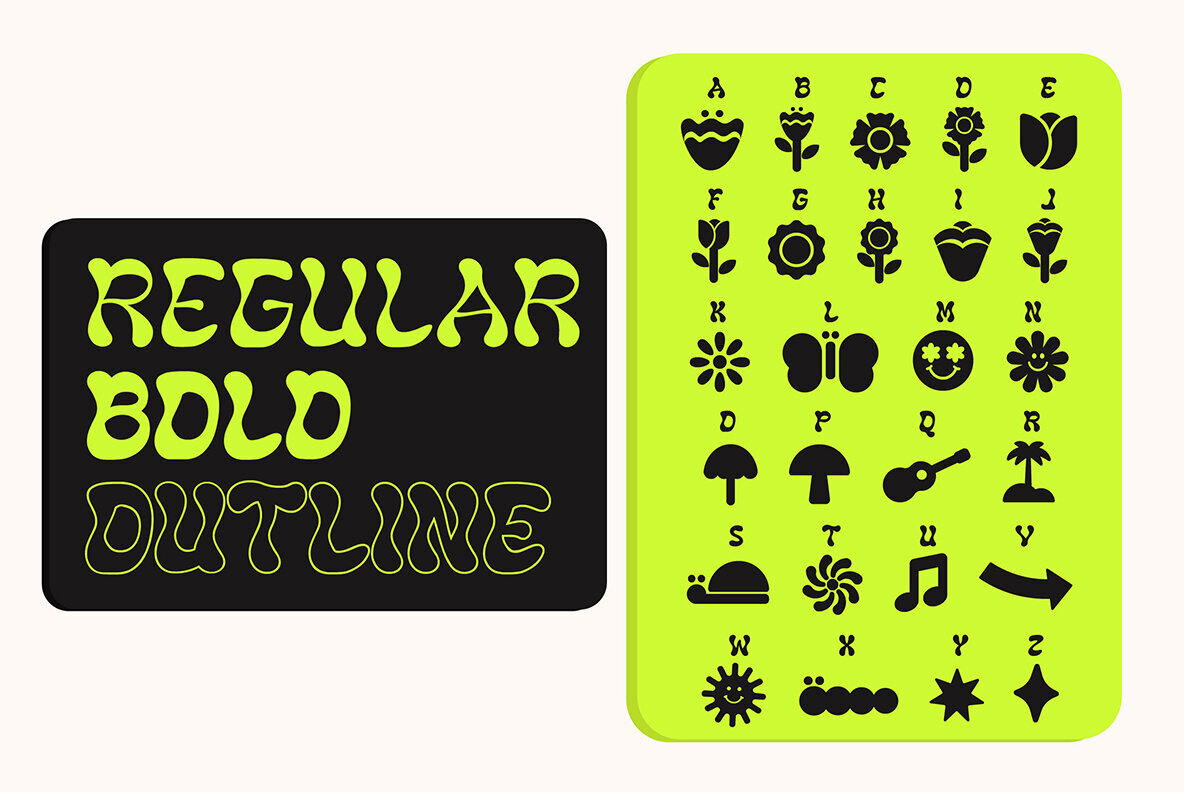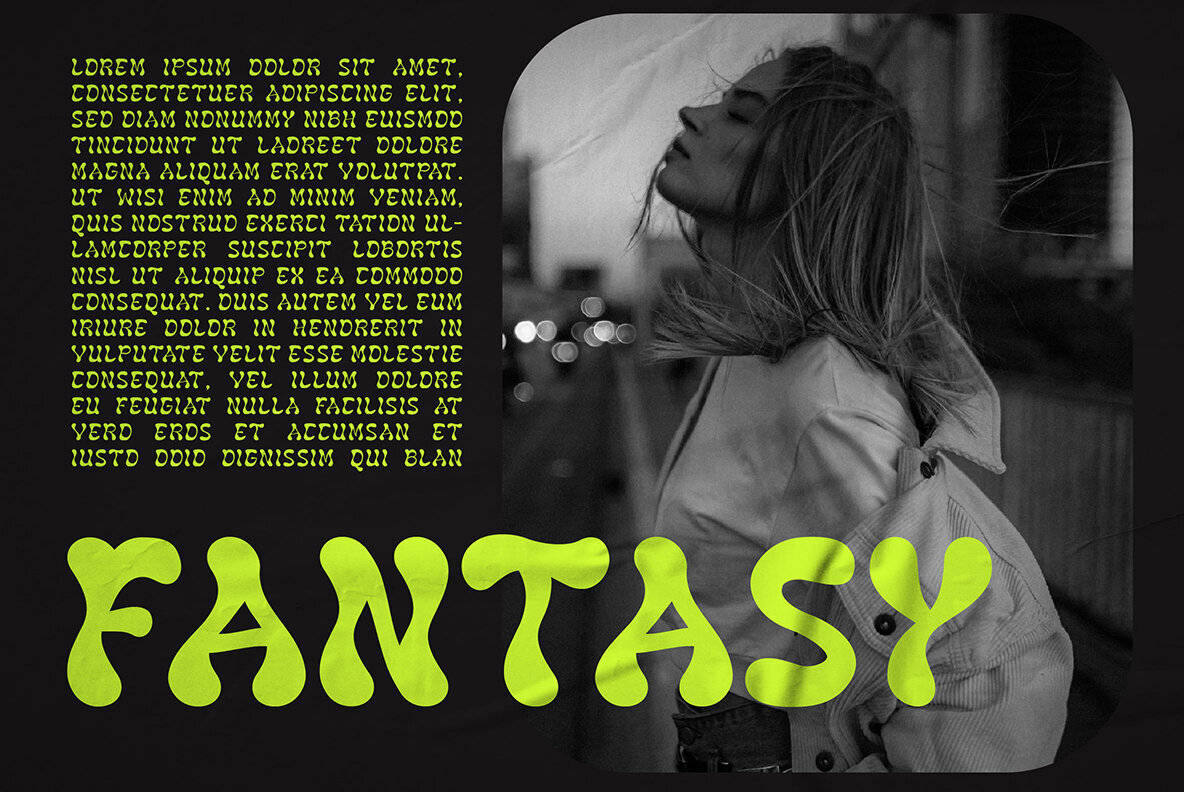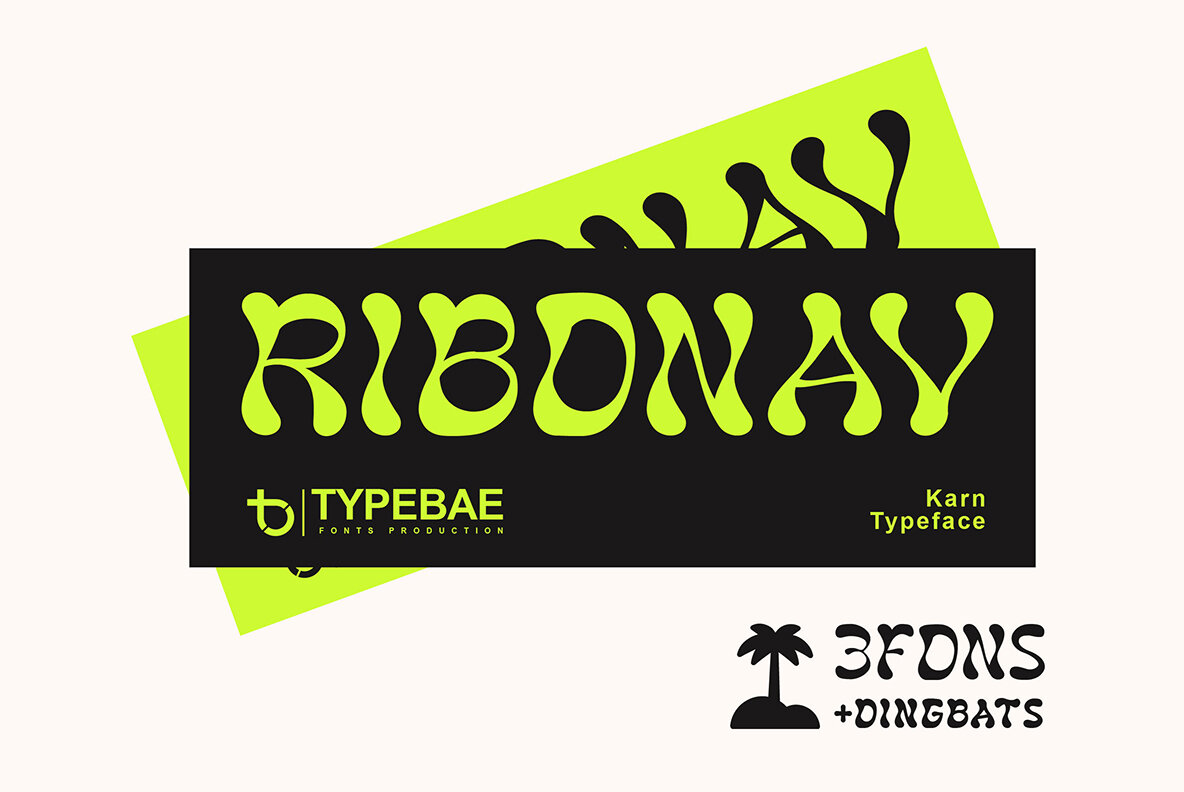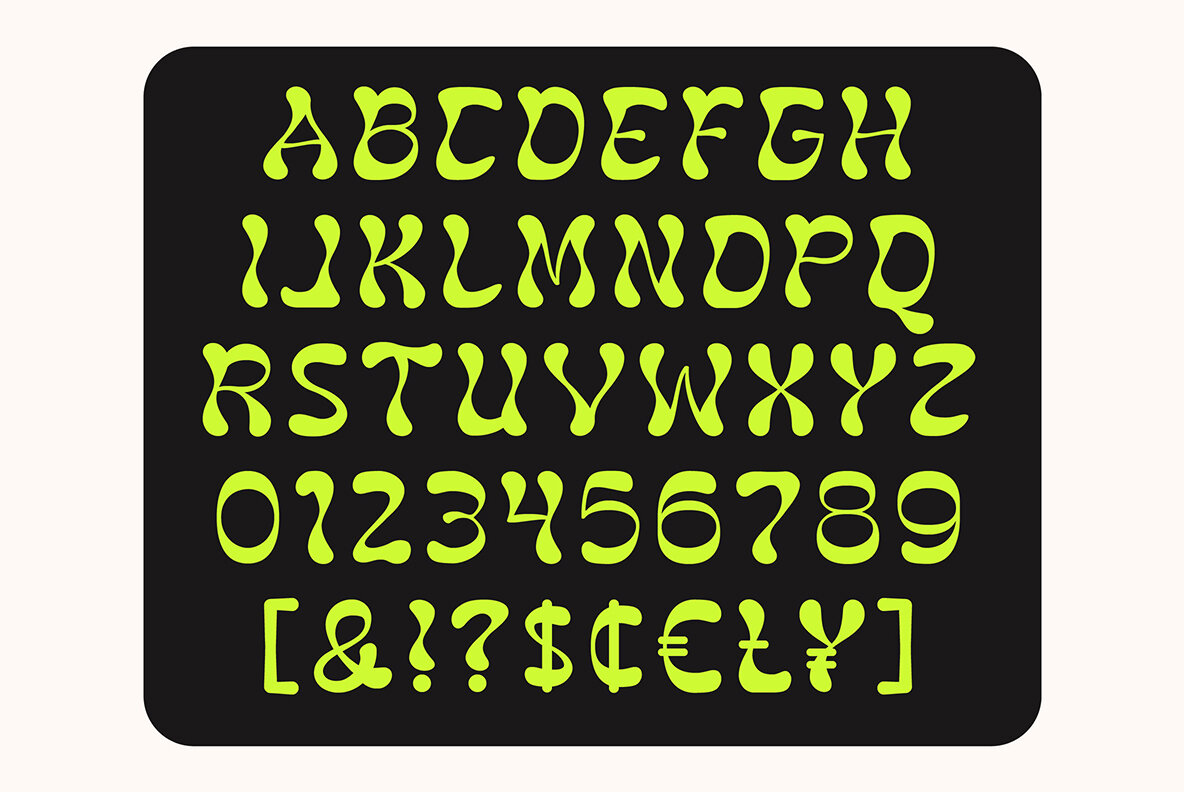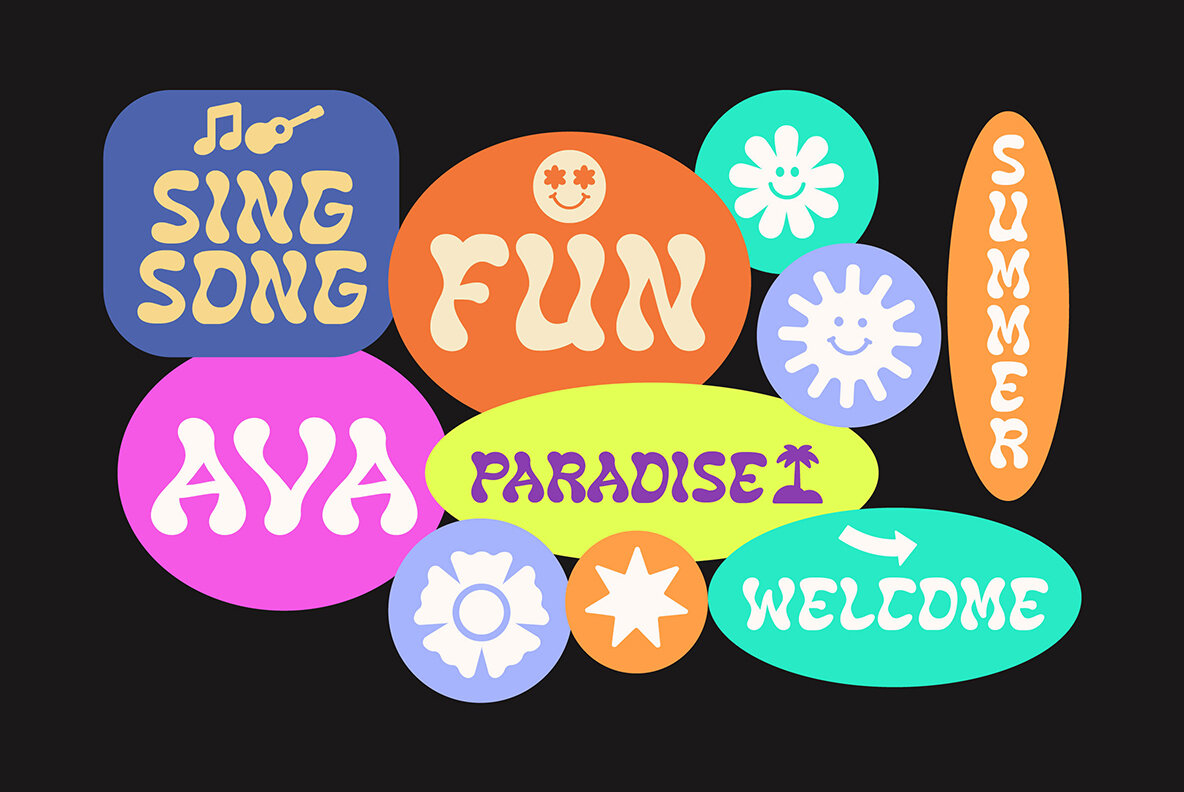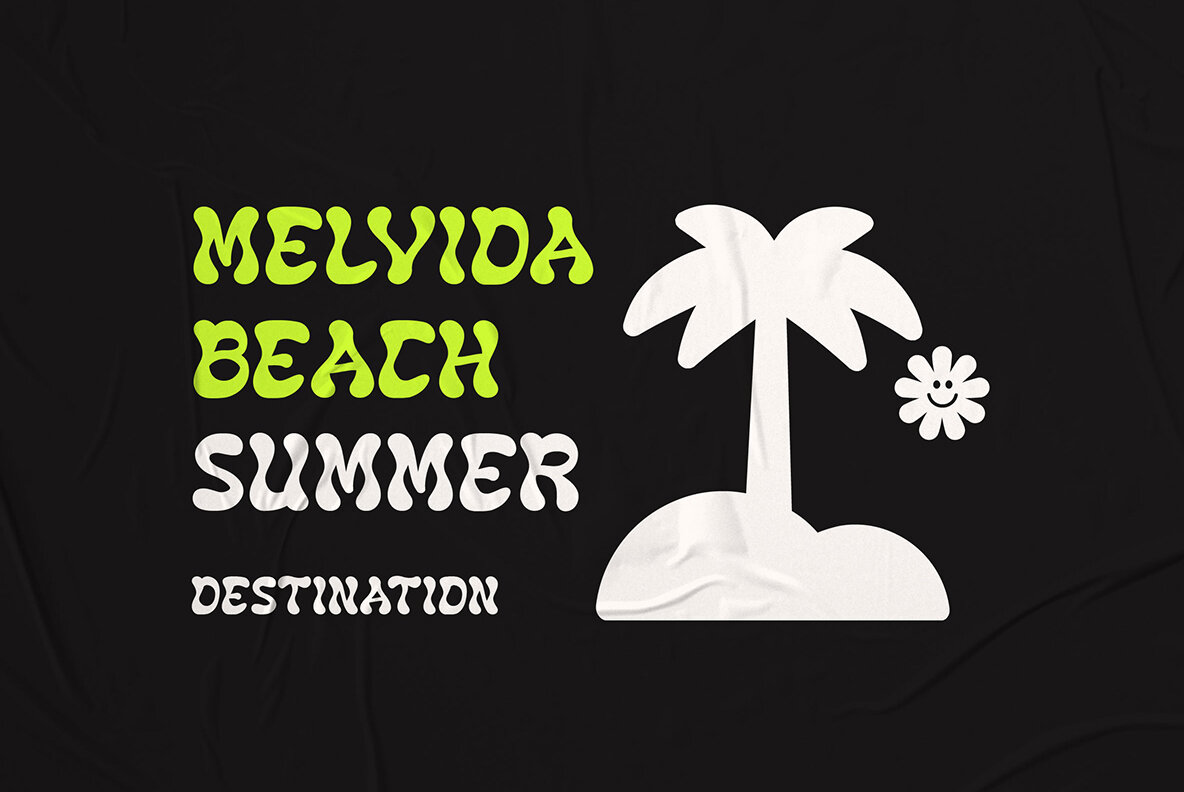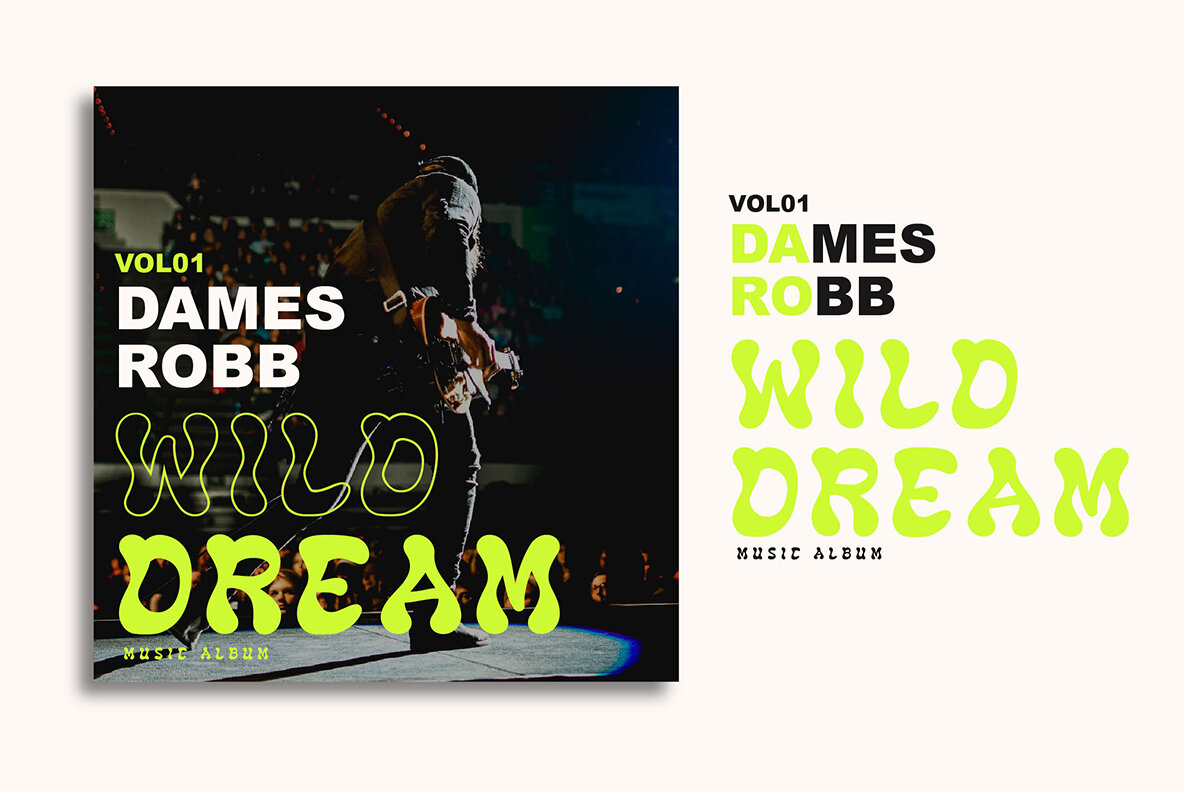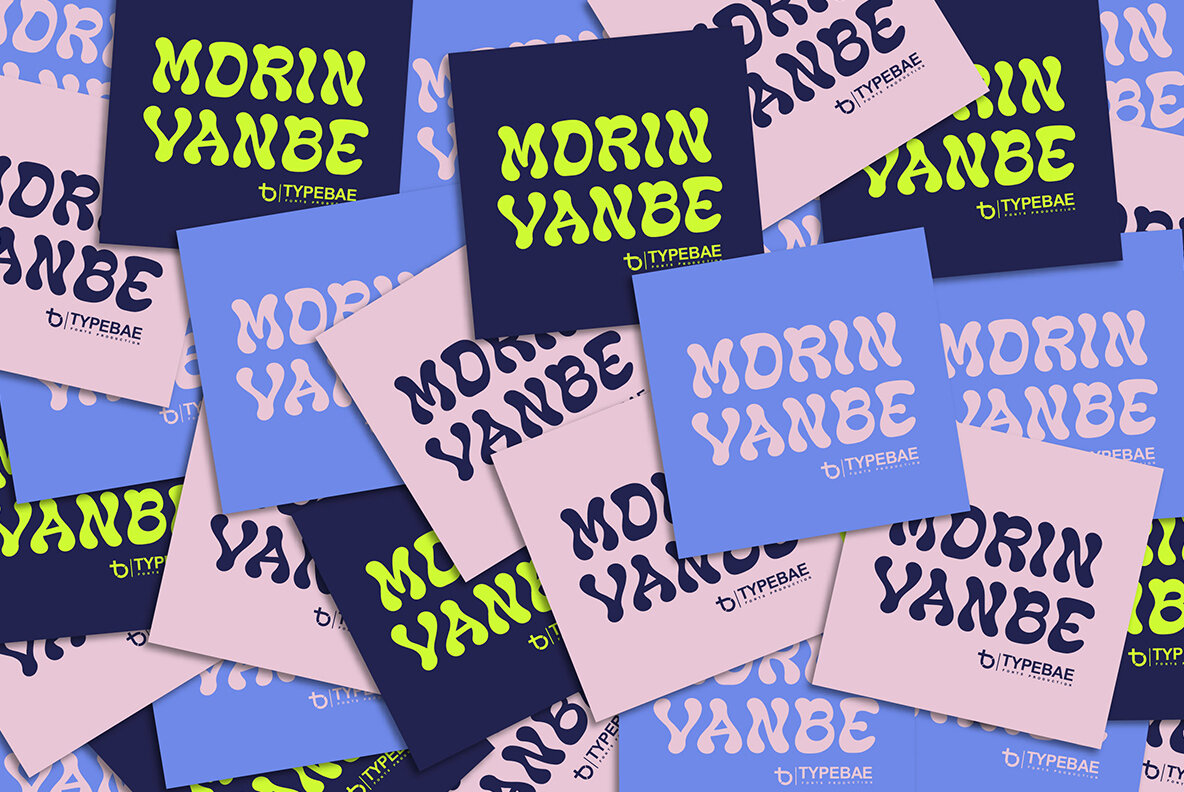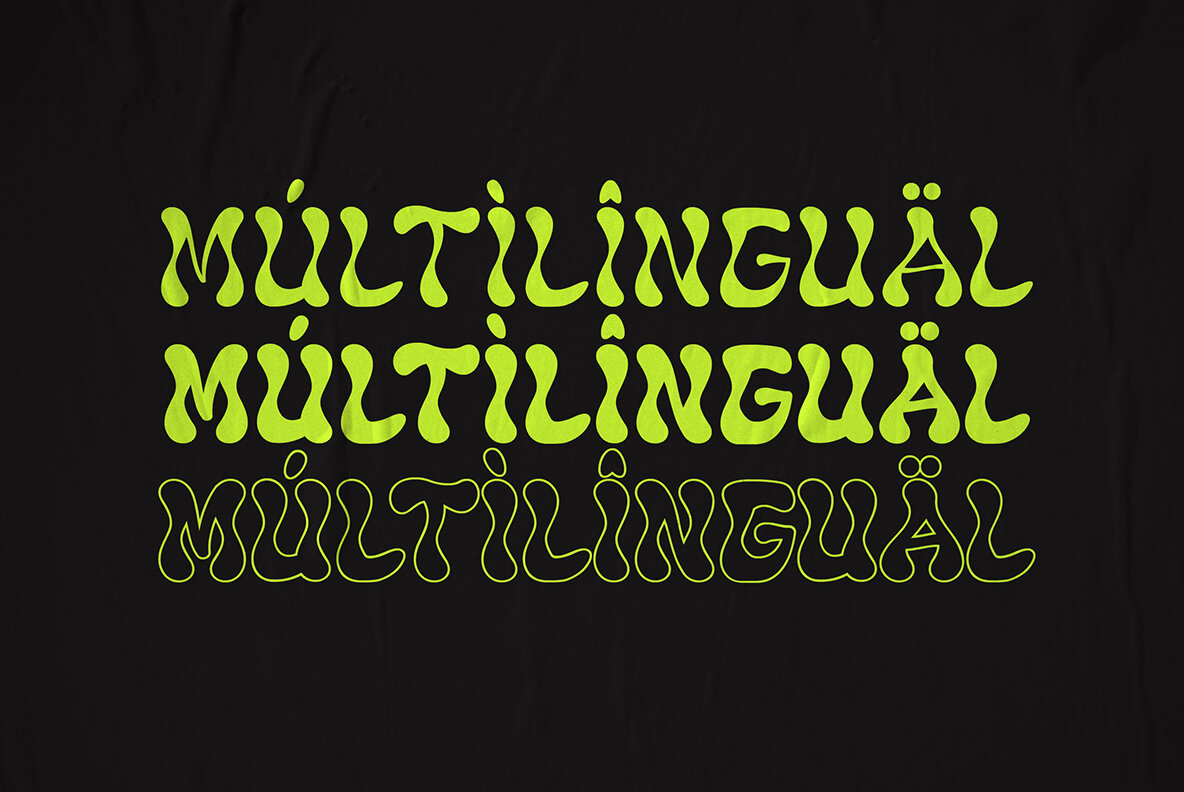
Karn Font
Karn is a vibrant display typeface inspired by the whimsical world of psychedelics, available in regular, bold, outline, and summer dingbats. This typeface adds a playful and creative touch to any project. Feel free to reach out with any questions or inquiries about Karn.Karn: Psychedelic-Inspired Display Typeface